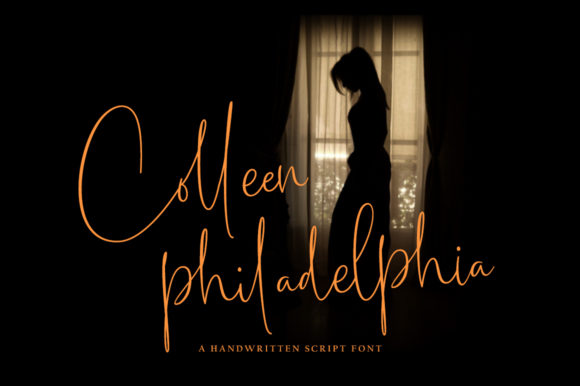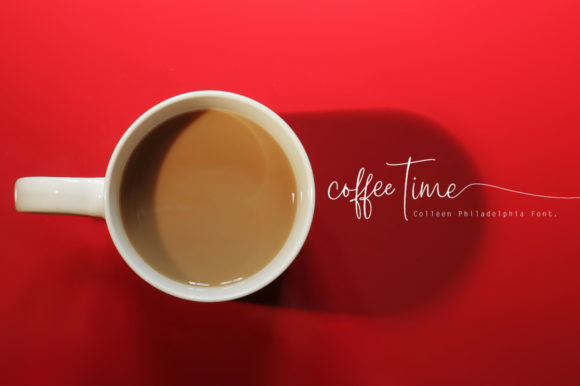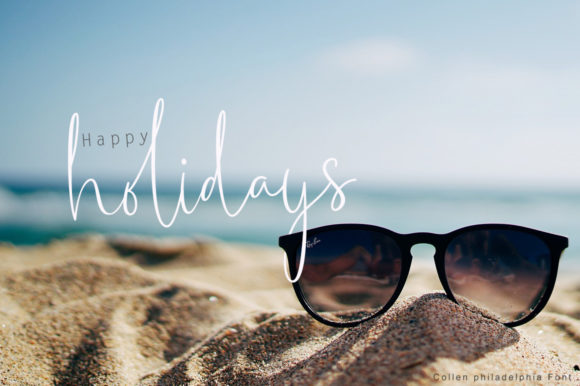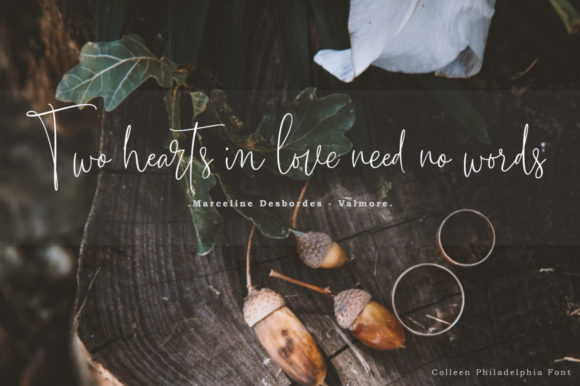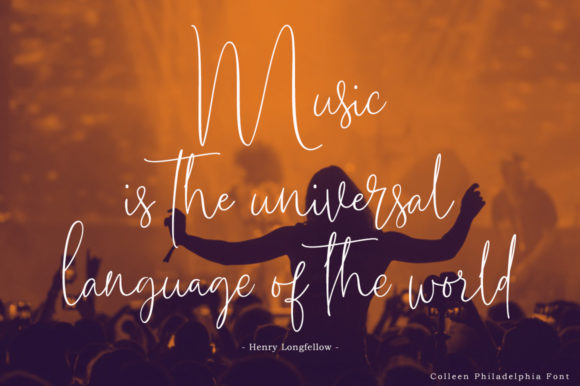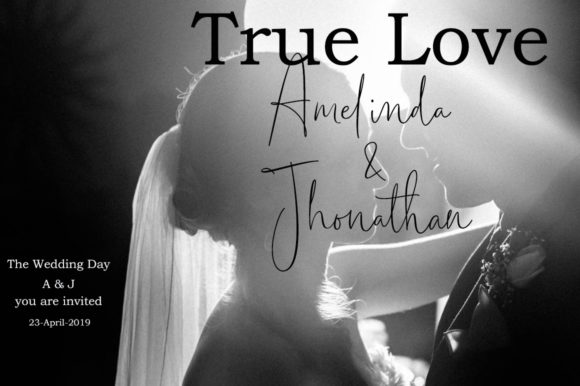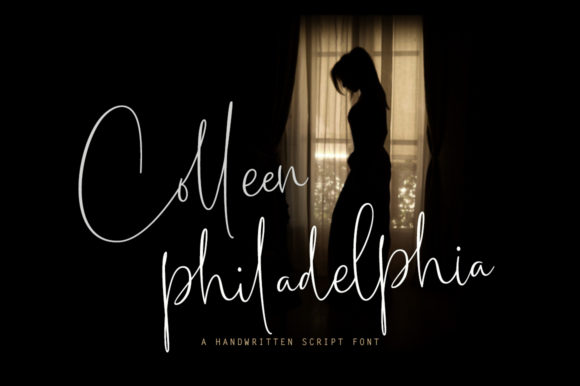
Colleen Philadelphia Font
About Colleen Philadelphia Font
Colleen Philadelphia is a stunningly unique handwritten font with a beautiful feel. Get inspired by its authentic charm.